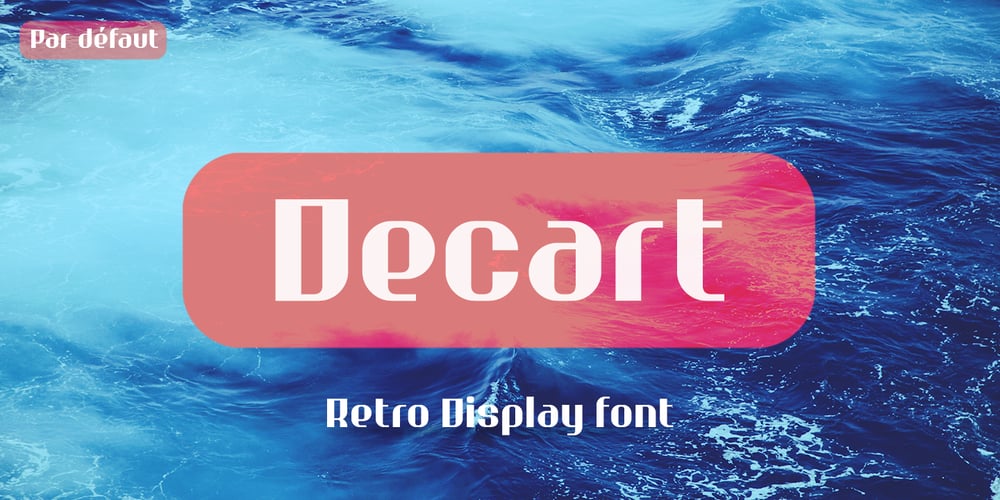
Decart Font Family was designed by Nathanaël Dorange and published by Par Défaut. Decart contains 1 styles and family package options. Decart is retro display font inspired by “Art Deco” style with more than 1100 characters,covering many languages using latin and cyrillic alphabet.The font also has 15 OpenType features : (All access Alternative (aalt) – Contextual Alternates (calt) – Fraction (frac) – Numerator (numr) – Denominator (dnom) – Superior (sups) – Inferior (sinf) – Tabular Figure (tnum) – Old Style (onum) – Ordinals (ordn) – Small Capital (smcp) – Small Capital From Capital (c2sc) – Case Sensitive Forms (case) – Stylistic Set (ss01 – ss02 – ss03) and Kerning (kern).Decart has, in addition, circled letters (basic latin & cyrillic), figures, fraction and arrows.